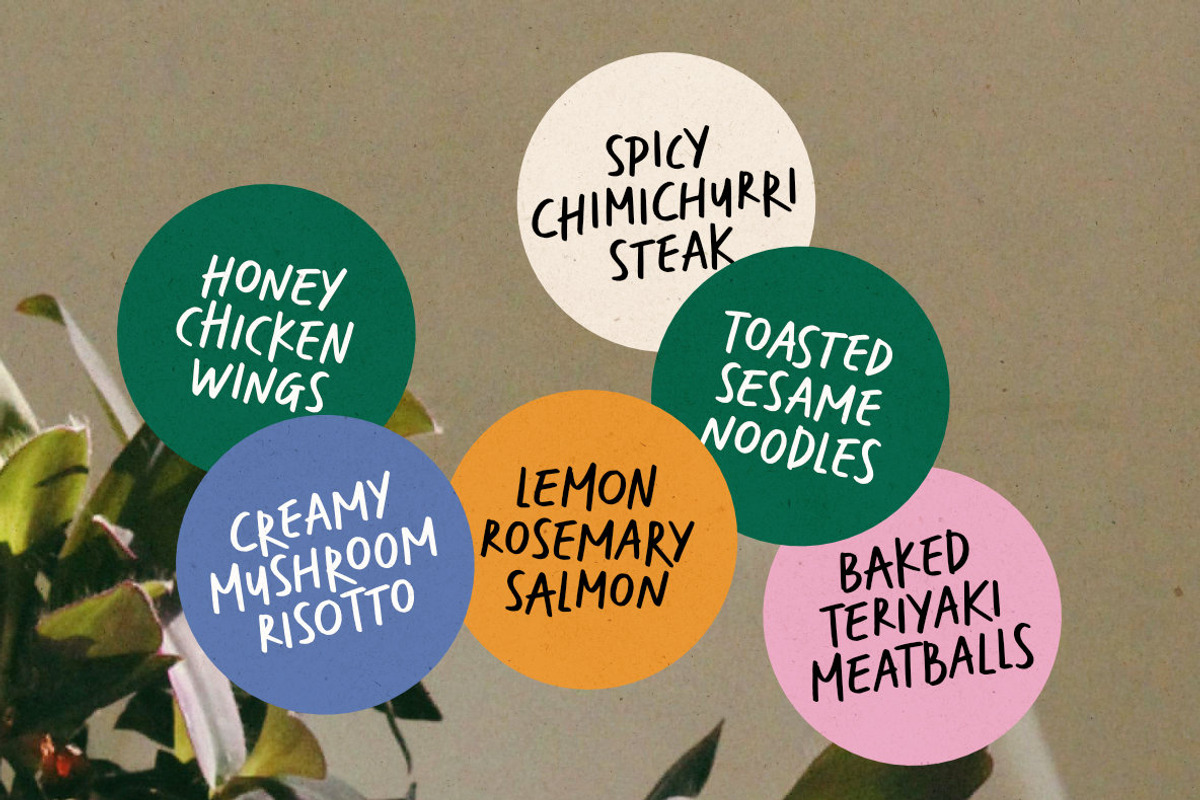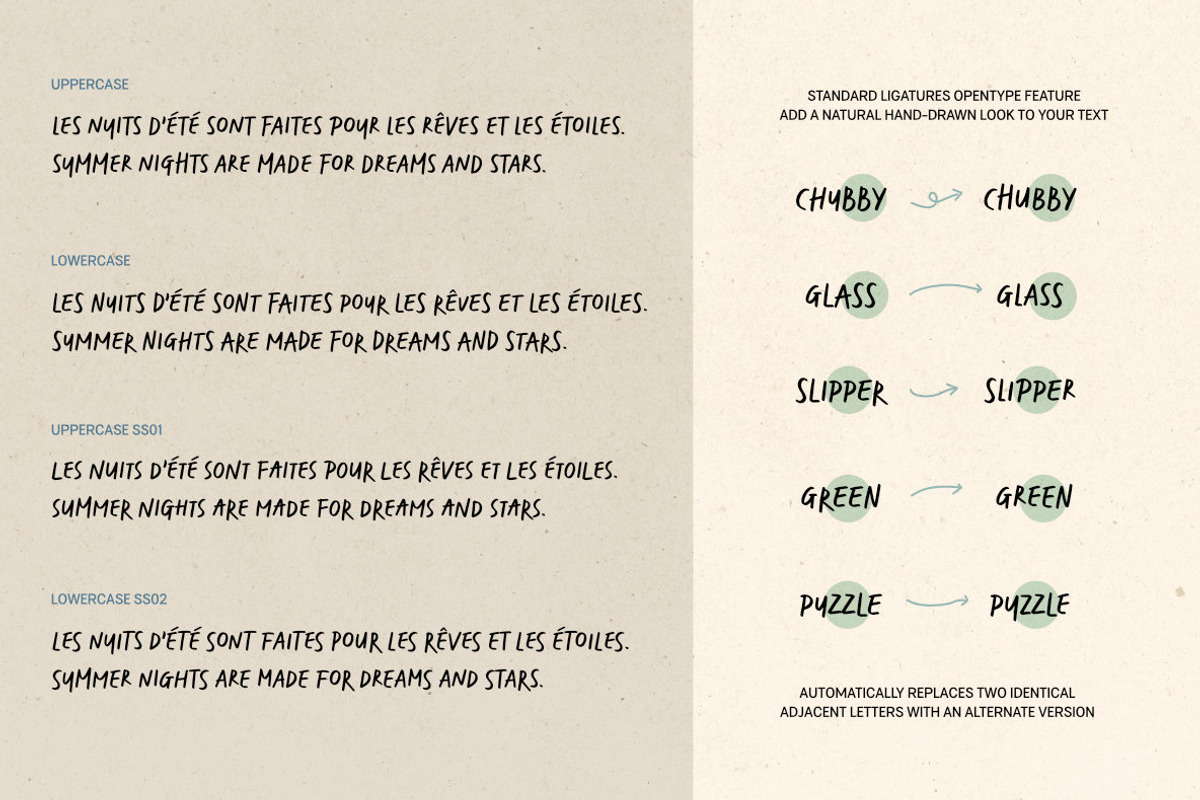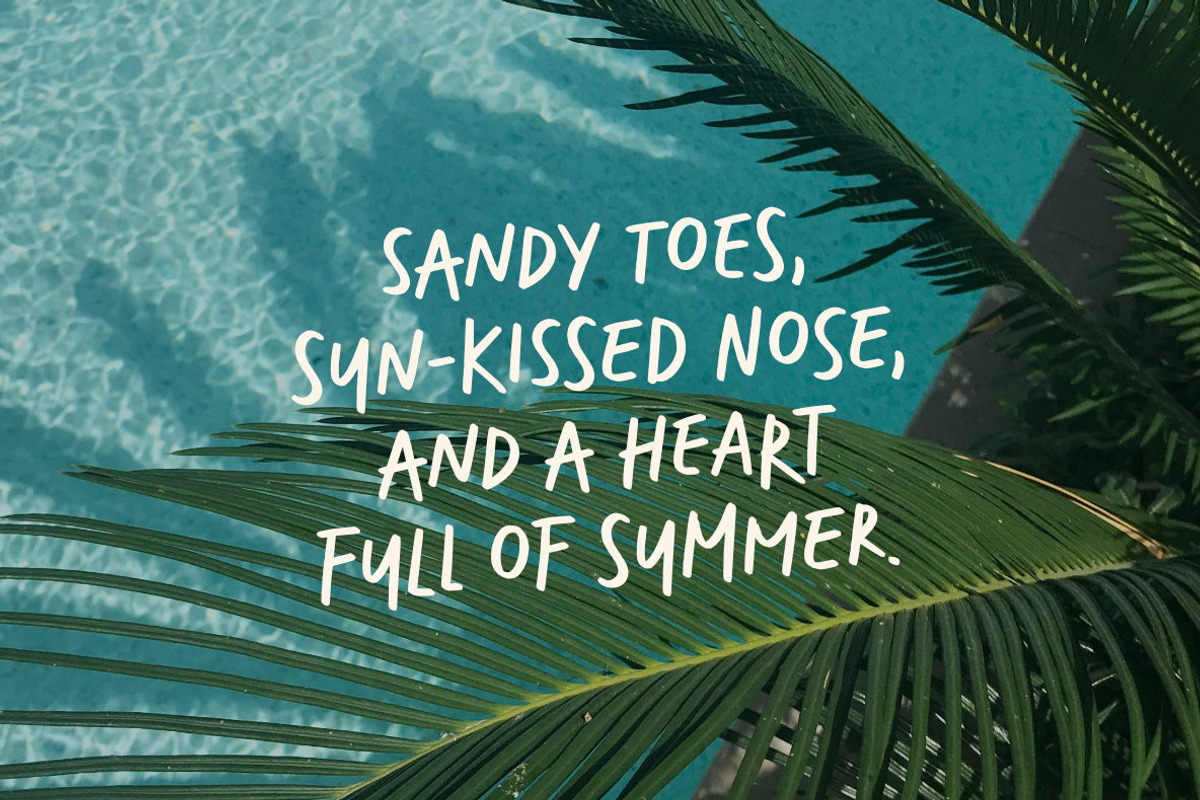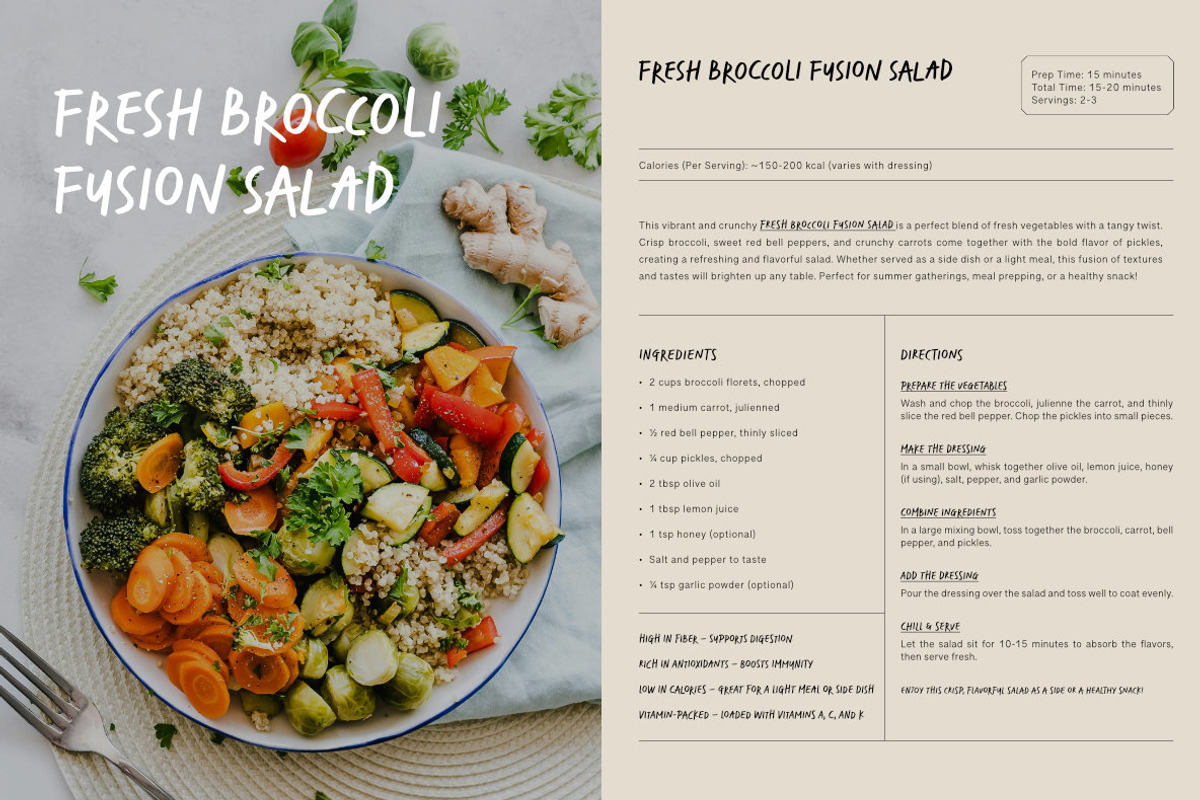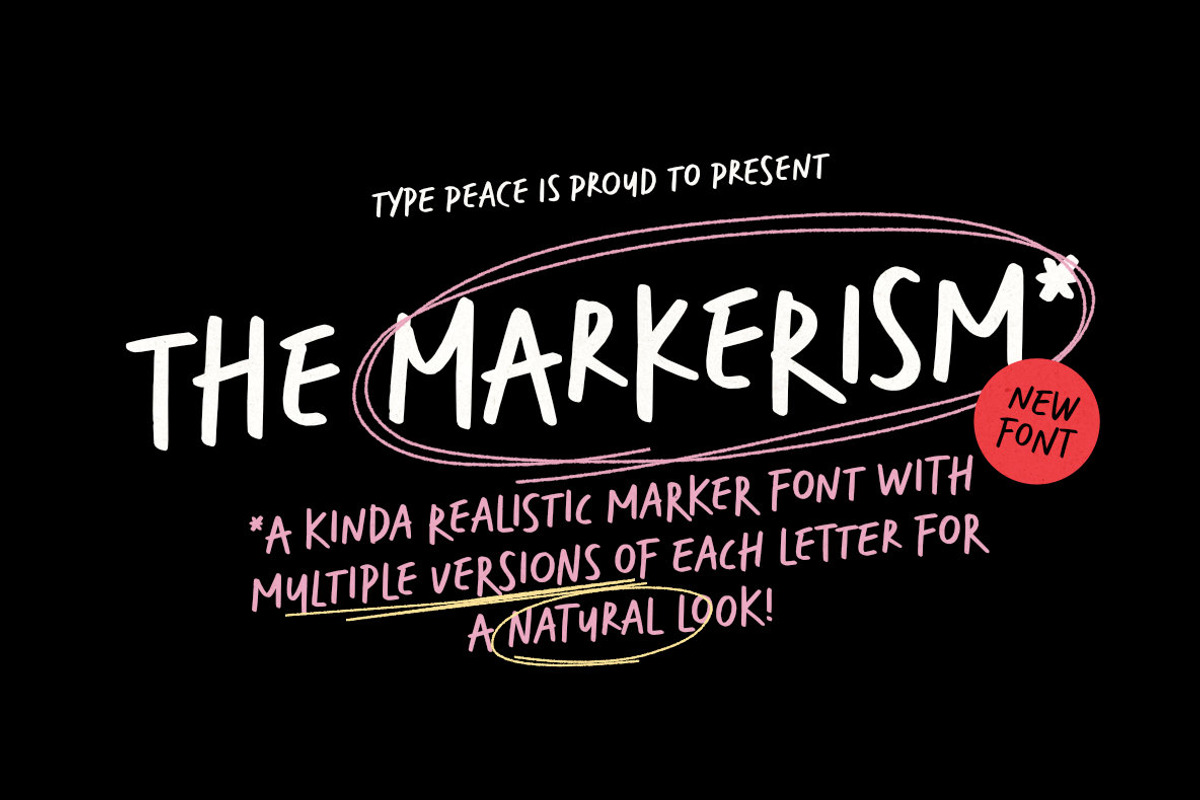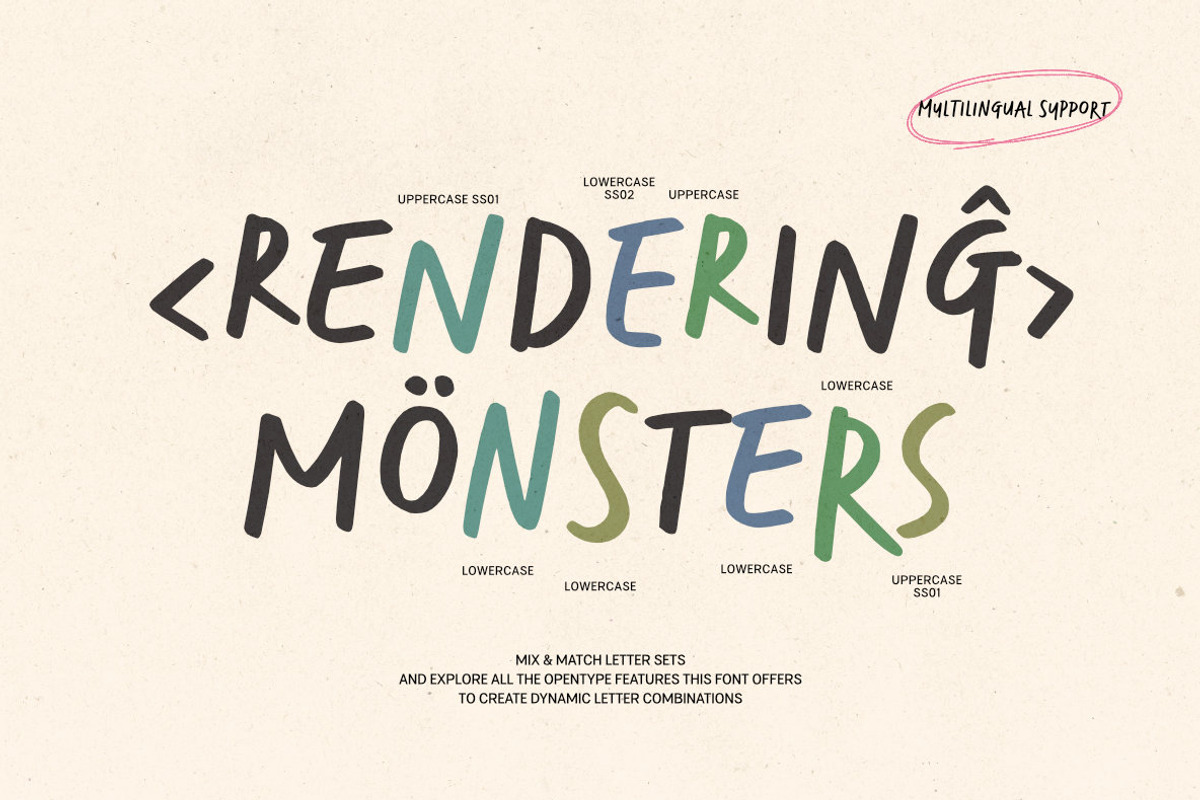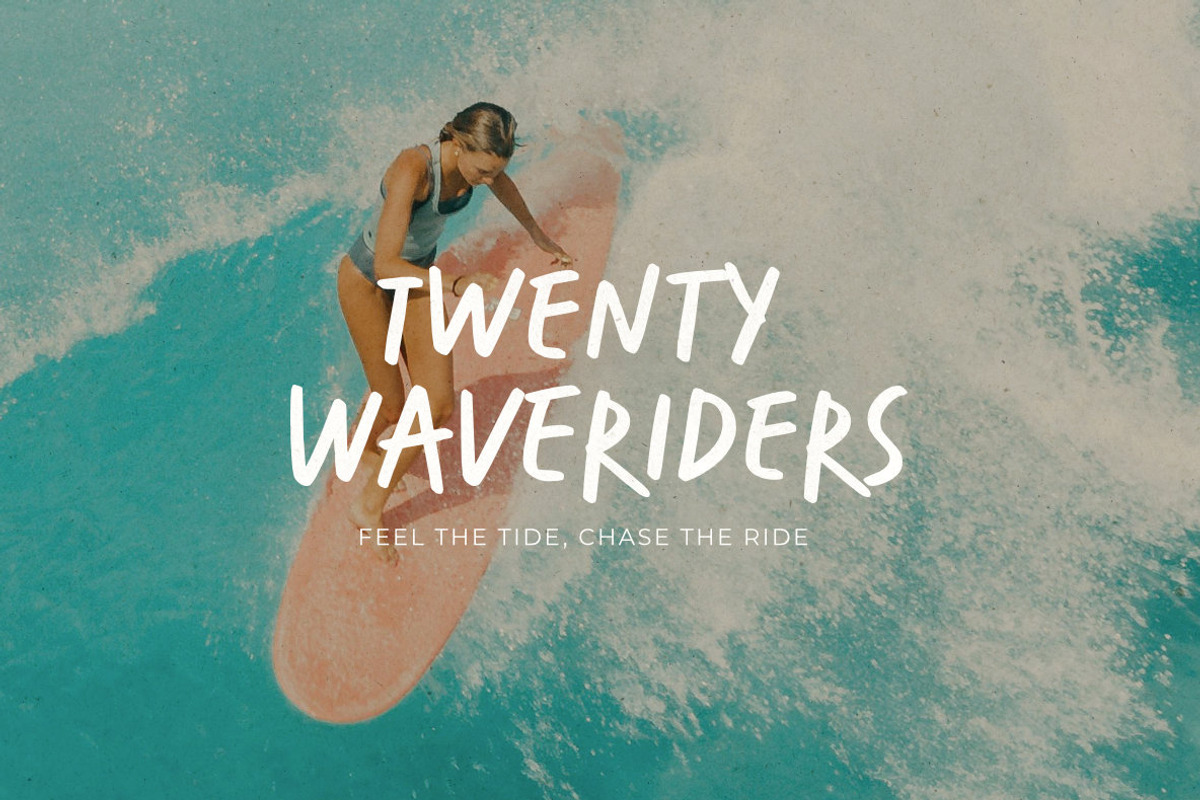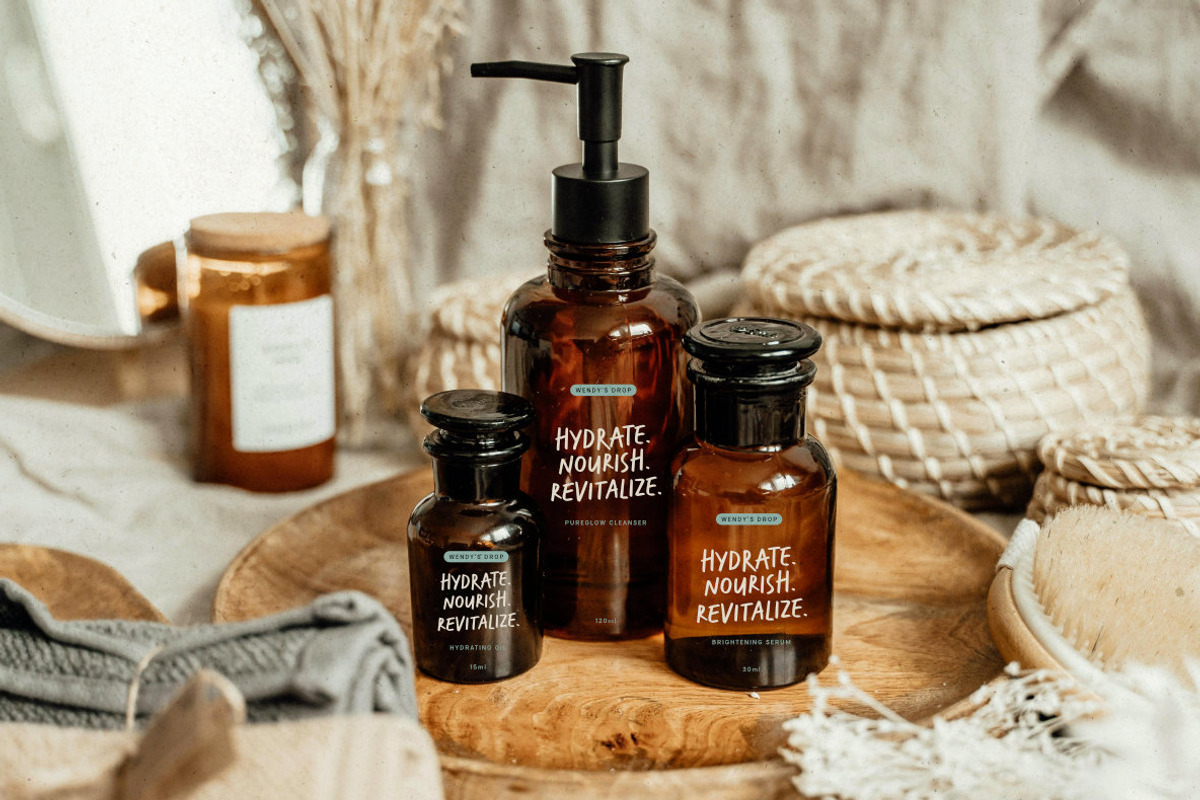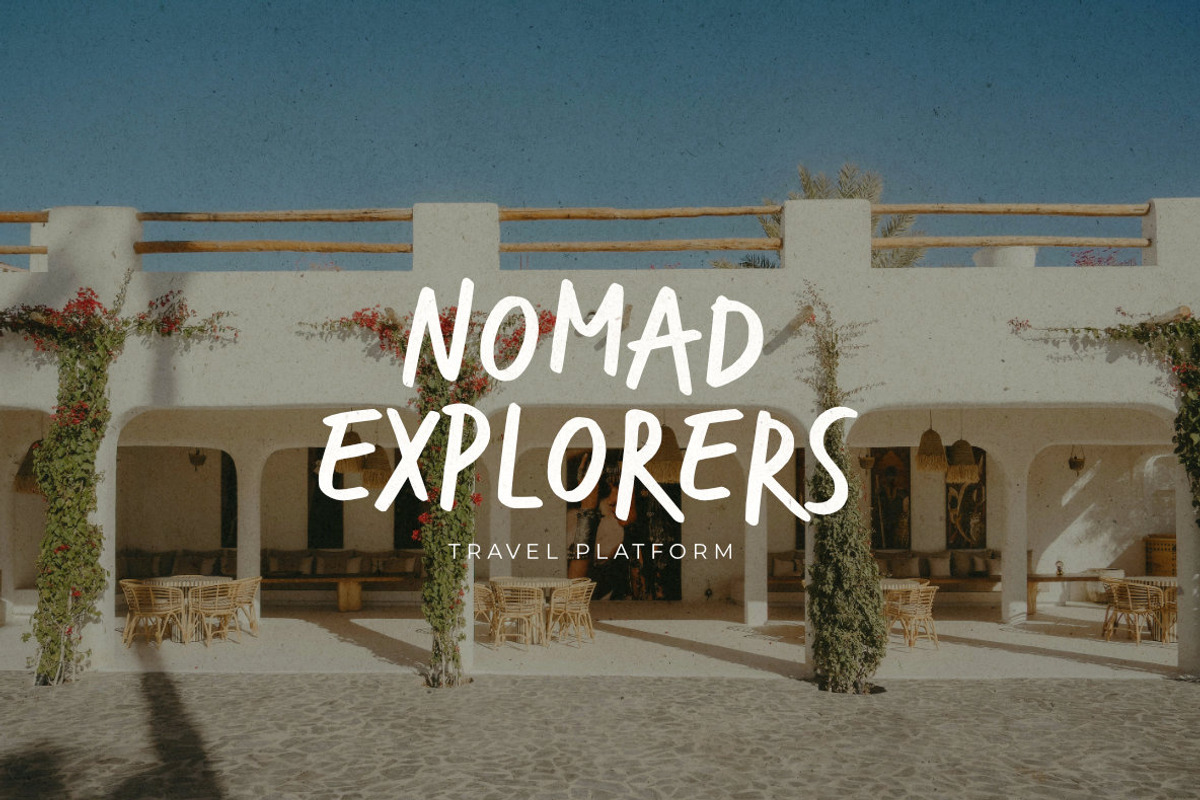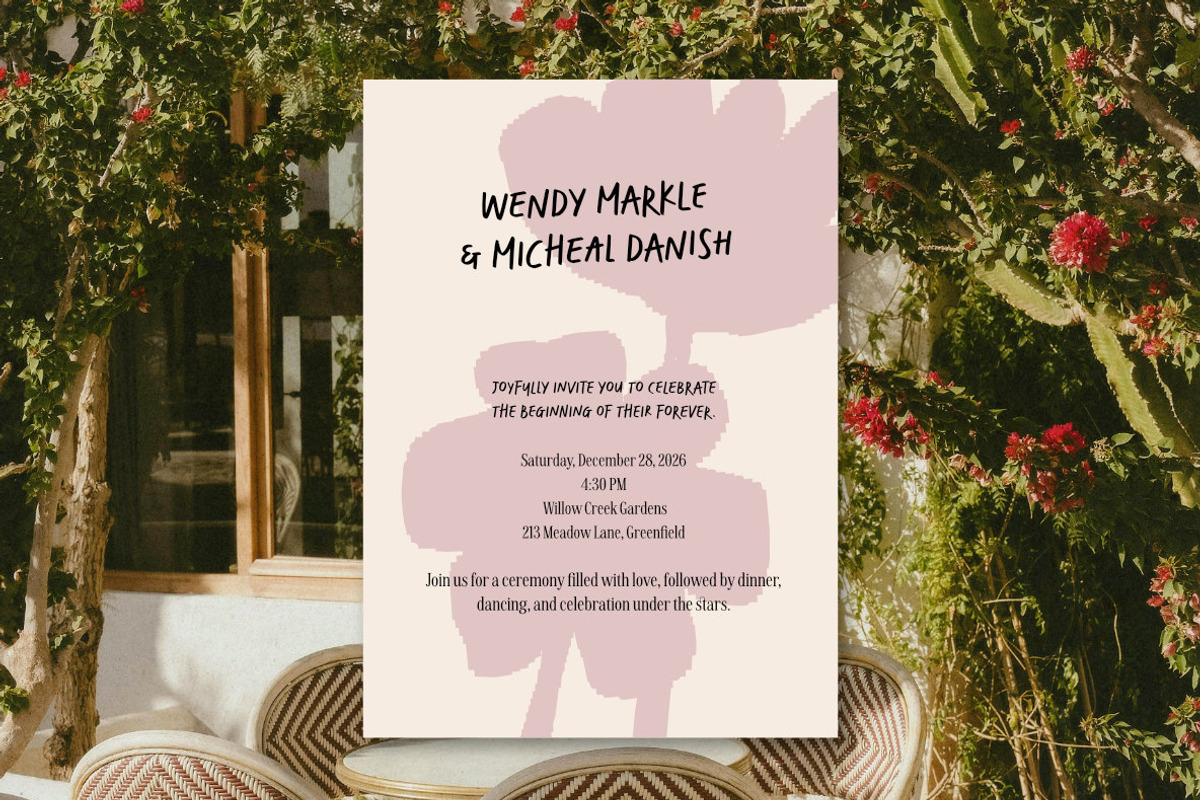
MARKERISM | Marker Font
MARKERISM is a bold and expressive marker font designed for natural, hand-drawn typography. With four variations of each letter and rich OpenType features, including ligatures and contextual alternates, it effortlessly creates authentic, dynamic text. Complete with multilingual support, MARKERISM is perfect for adding a personal and artistic touch to any design project.
The font automatically replaces two identical adjacent letters with an alternate version to create a more natural handwritten look. If this feature isn't applied automatically, enable the OTF Standard Ligatures option.
Mix & match letter sets and explore all the OpenType features this font offers to create dynamic letter combinations!
Font features:
All-cap with 800+ glyphs
4 versions of each letter, 2 sets of numbers
Numbers, marks and symbols
Opentype features: Standard Ligatures, Discretionary Ligatures, Stylistic Sets, Contextual Alternates, Stylistic Alternates
Script: Latin
Supported Languages: English, Western European, Central European, South Eastern European, Oceanian, Vietnamese, Esperanto